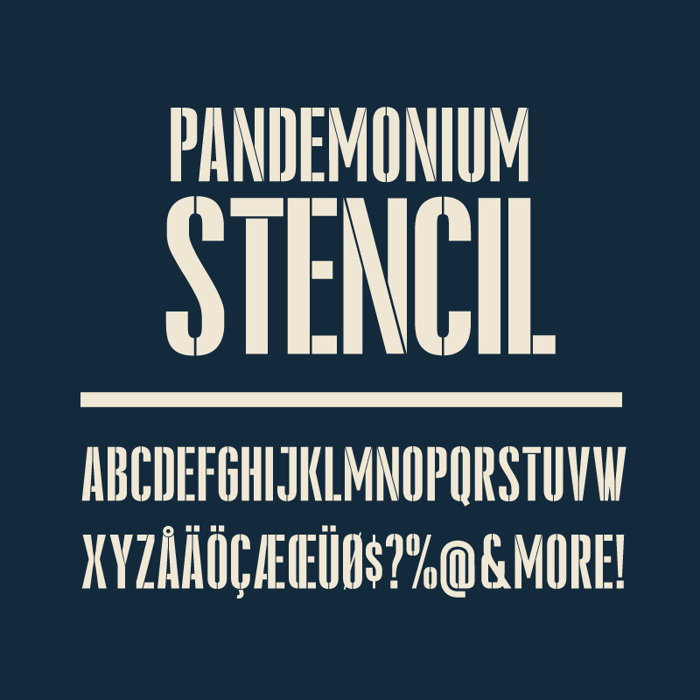
Pandemonium Stencil Font
Pandemonium Stencil is a condensed stencil font. Perfect for bold extensive, and very important messages. Or anything you want.